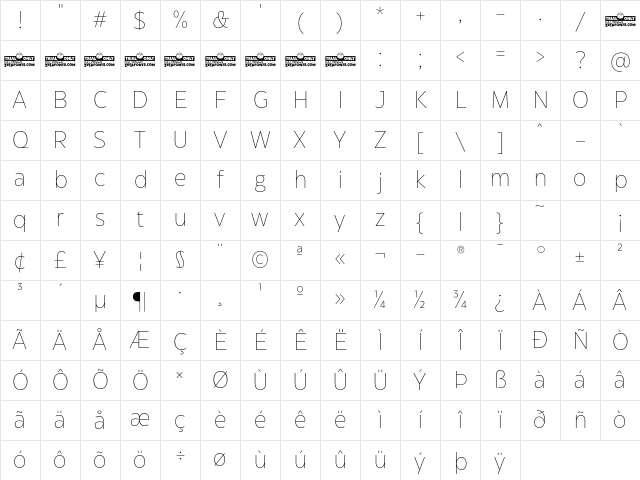
Complete Eastman Grotesque Trial Extralight glyph index. Displaying only characters natively supported by Eastman Grotesque Trial Extralight font.
Eastman Grotesque Trial is a composed and adaptable typeface that performs quietly and consistently across a wide range of design contexts. Its slender proportions lend an understated elegance to any composition.